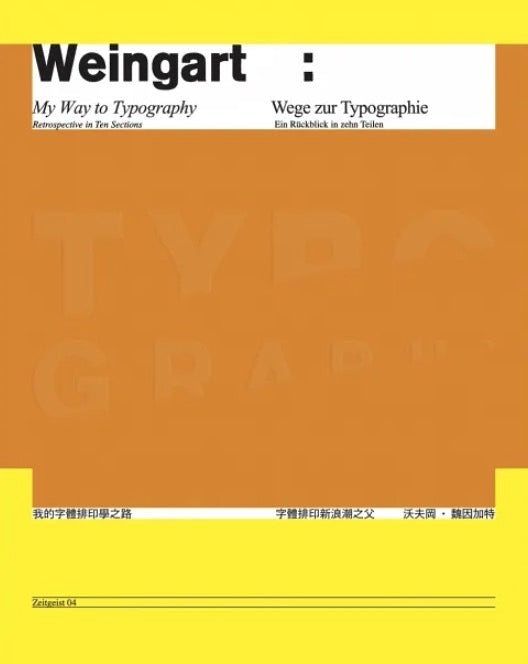
My Typographic Journey
Wolfgang Weingart (Wolfgang Weingart), an internationally renowned graphic design and typography designer, is also known for his philosophical thinking and education on design. From the "Swiss style" typography rooted in his hometown of Switzerland, his rebellious (or "evolution") spirit has led a new trend. Under the basic principles of layout, he uses font thickness and composition to explore different ways of expression. In addition, he also tried new possibilities through media methods such as negative collage, and created a breakthrough expression technique before digital tools appeared, and continued to bring great influence and inspiration to today's typography and graphic design.
"For me, the visual codes of typography are not inviolable. I want to evoke a fascination with the fundamental design mediums and their relationship to each other, such as slant, weight, size, expressions of various typefaces, limits of readability, And the most interesting — letter-spacing effects, to challenge the norm.”
As a leading figure in typography and new trend (also known as Swiss punk typography), Weingart, from the perspective of designers and educators, collects in this book his forty years of experience in this field. His thoughts and works are summarized, and in the form of images and words in this book, he gives readers the most direct display of his own aesthetics, leaving a complete record of his important works and thoughts in his life.